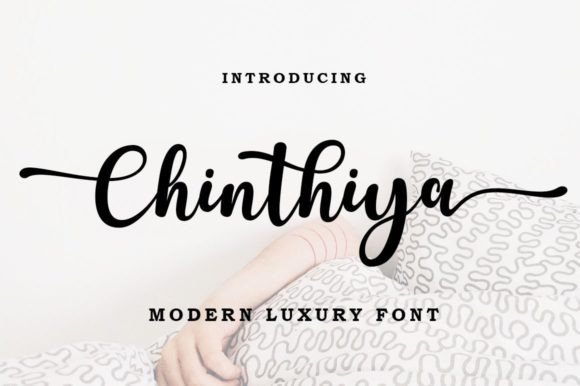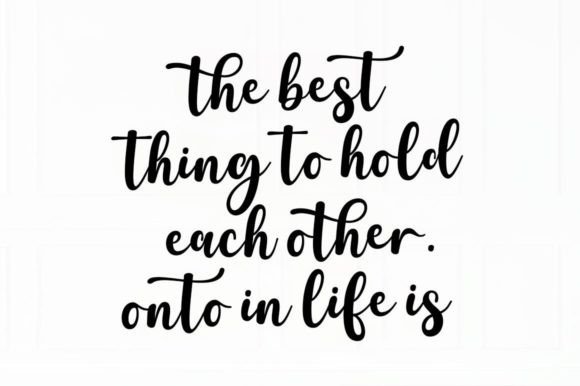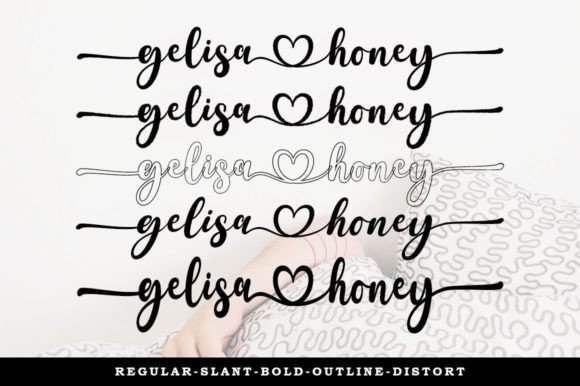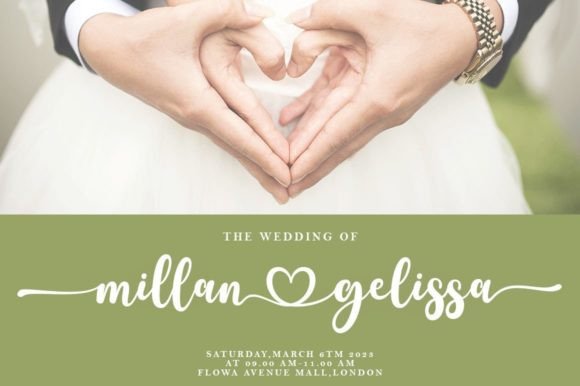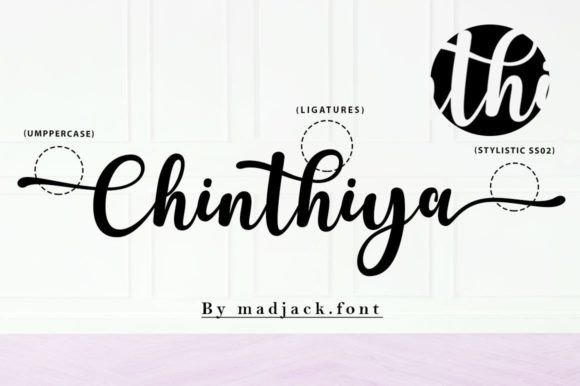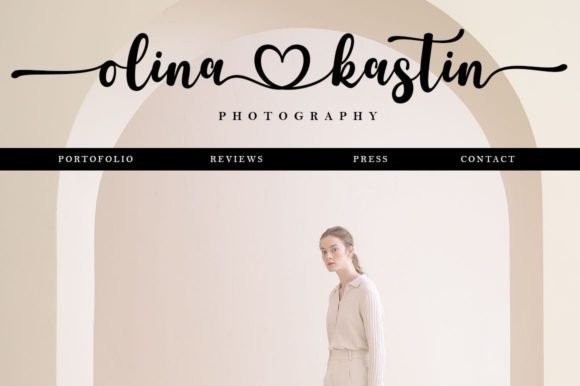
The Elusive Font: My Journey with Chinthiya
I’ll never forget the project that led me to discover Chinthiya. I was working on a branding campaign for a luxury boutique, and my client asked for a font that exuded elegance and sophistication. I scoured the internet, tried out dozens of fonts, but nothing seemed quite right. That was until I stumbled upon Chinthiya – a beautiful, handwritten font that seemed to tick all the boxes.
What is Chinthiya?
Chinthiya is an elegant and flowing handwritten font, designed to add a touch of luxury to any project. It features varied baselines, smooth lines, gorgeous glyphs, and stunning alternatives. This font is perfect for designers, crafters, and creative hobbyists looking to elevate their work.
My Honest Review of Chinthiya
- ✨ Elegant and flowing design that’s perfect for luxury brands
- ✅ PUA encoded, making it easy to access glyphs and swashes
- 🎨 Stunning alternatives and glyphs to add visual interest
- ⚠️ Some users may find the font a bit too ornate for certain projects
- 🤔 Limited use of uppercase letters, which may not be ideal for headings or titles
The Story Behind Chinthiya
Chinthiya was designed by a team of skilled typographers who wanted to create a font that would evoke the elegance and sophistication of handwritten calligraphy. Inspired by traditional copperplate scripts, Chinthiya features beautiful swashes, glyphs, and alternates that add a touch of luxury to any project.